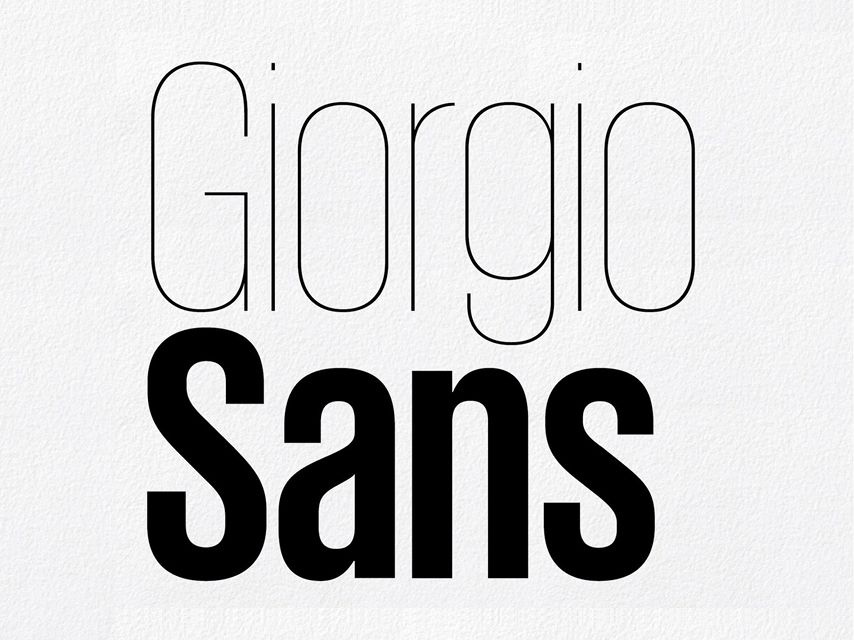
Giorgio Sans Family Font
Giorgio Sans Family Font excels in corporate branding projects, modern website designs, tech startup identities, minimalist poster designs, architectural presentations, professional business cards, clean magazine layouts, contemporary signage systems, mobile app interfaces, financial reports, medical documentation, educational materials, and sleek marketing campaigns where clarity and professional sophistication are paramount.
This outstanding typeface generates excitement through its masterful balance of geometric precision and humanist warmth, creating typography that feels both authoritative and approachable. Giorgio Sans Family Font distinguishes itself with exceptional legibility across all sizes, from large display headlines to small body text, while maintaining consistent character and personality throughout. The font's clean lines and well-proportioned letterforms reflect contemporary design sensibilities without sacrificing readability or functionality. Its versatile nature allows designers to create cohesive visual systems that work seamlessly across print and digital platforms, making it an ideal choice for comprehensive brand identity projects.
The Giorgio Sans Family Font collection features an extensive range including Ultra Light, Light, Regular, Medium, Semi-Bold, Bold, Extra-Bold, and Black weights, each available in both Roman and Italic styles. This comprehensive family also includes condensed and extended variations, providing designers with unprecedented flexibility for creating sophisticated typographic hierarchies. The font supports multiple languages and includes advanced OpenType features such as stylistic alternates, fractions, and superior/inferior numerals for professional typography applications.
Professional designers consistently choose Giorgio Sans Family Font Free Download for projects demanding versatile, reliable typography that performs exceptionally across diverse applications. This remarkable font family maintains its distinctive character while adapting beautifully to various design contexts, from corporate communications to creative advertising campaigns. The extensive weight range ensures perfect harmony in complex layouts while providing enough contrast for effective information hierarchy and visual interest.
Whether you're developing comprehensive brand guidelines, creating user interface designs, designing annual reports, or building responsive websites, Giorgio Sans Family Font delivers unmatched versatility and professional polish. Its contemporary aesthetic ensures your designs will remain current and sophisticated while its exceptional functionality guarantees optimal performance across all media. The font family's ability to maintain consistency while offering creative flexibility makes it an essential tool for designers who value both aesthetic excellence and practical reliability in their typography choices.